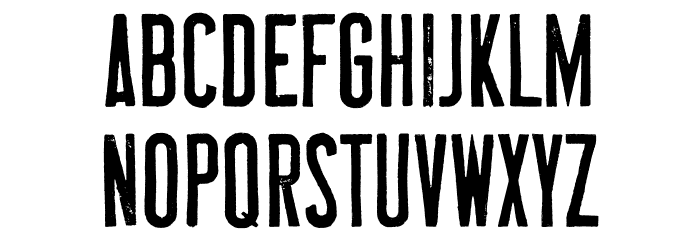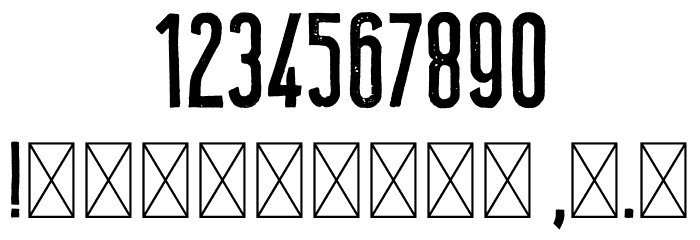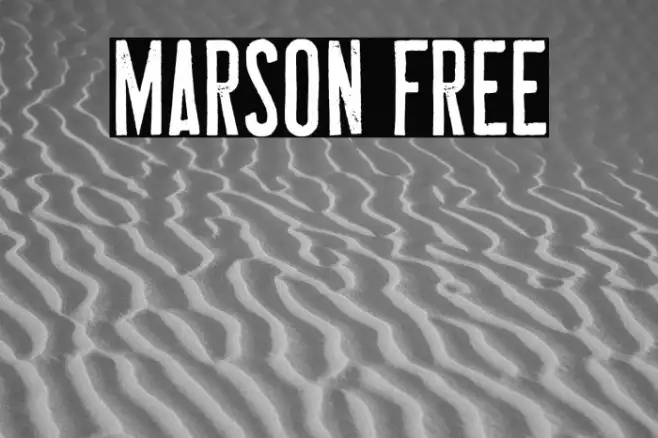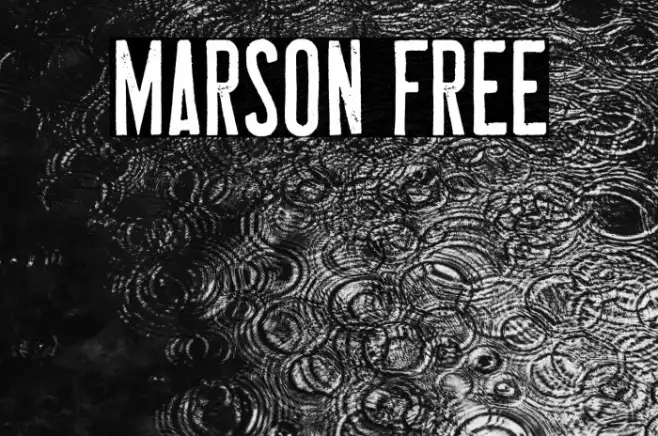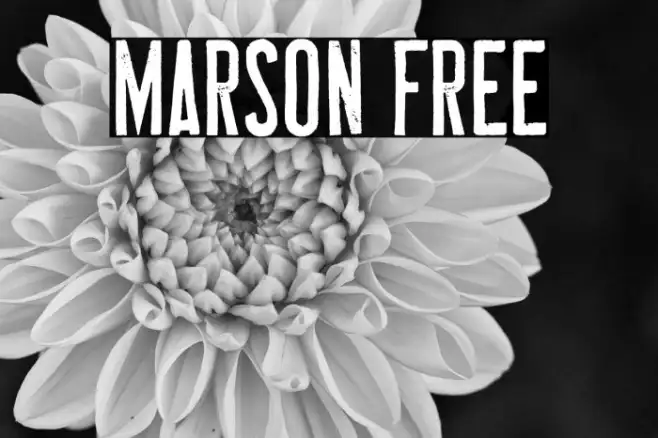
MARSON Free Font
This font features a bold, distressed style with a vintage, industrial feel. The uppercase letters are tall and narrow, giving a condensed appearance. The texture is rough, with a worn, grunge effect that adds character and a sense of history. The numbers follow the same style, maintaining consistency across the typeface. The font lacks lowercase letters and special characters, focusing on a strong, impactful presence. Its unique, rugged design makes it suitable for projects that require a bold statement.
A bold, distressed font with a vintage, industrial feel.
- Proposed Projects: Ideal for posters, logos, branding, and packaging that require a strong, vintage aesthetic.
- Overall Style: Vintage